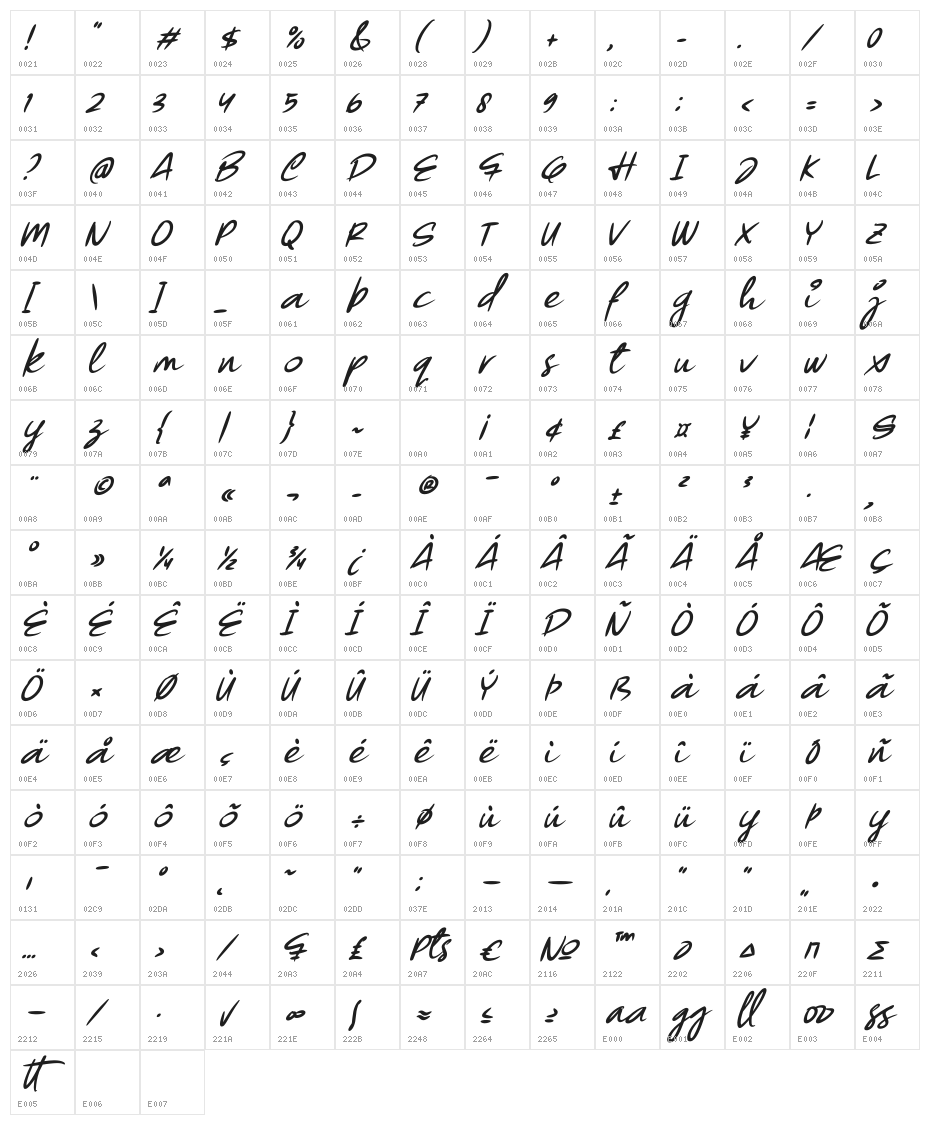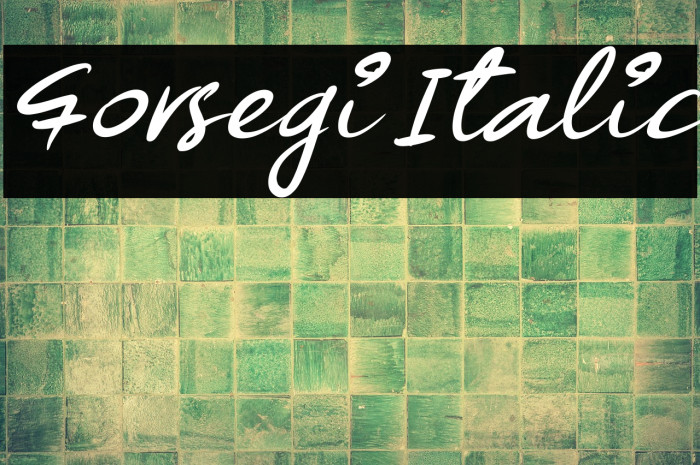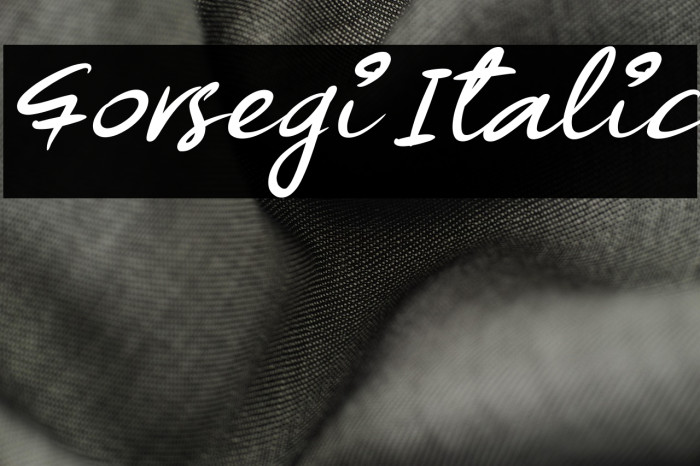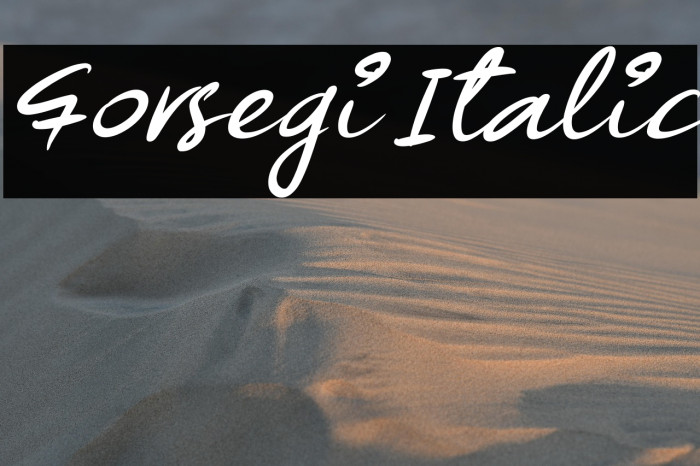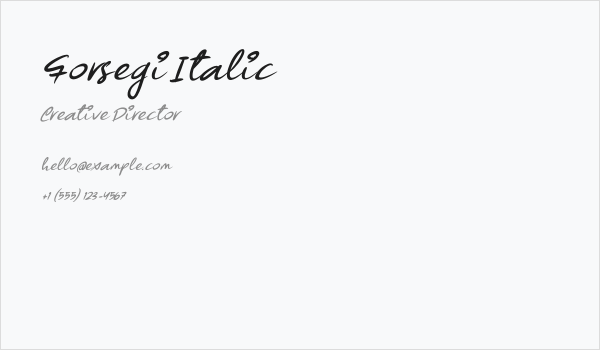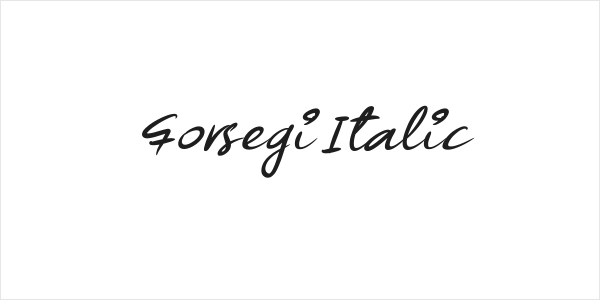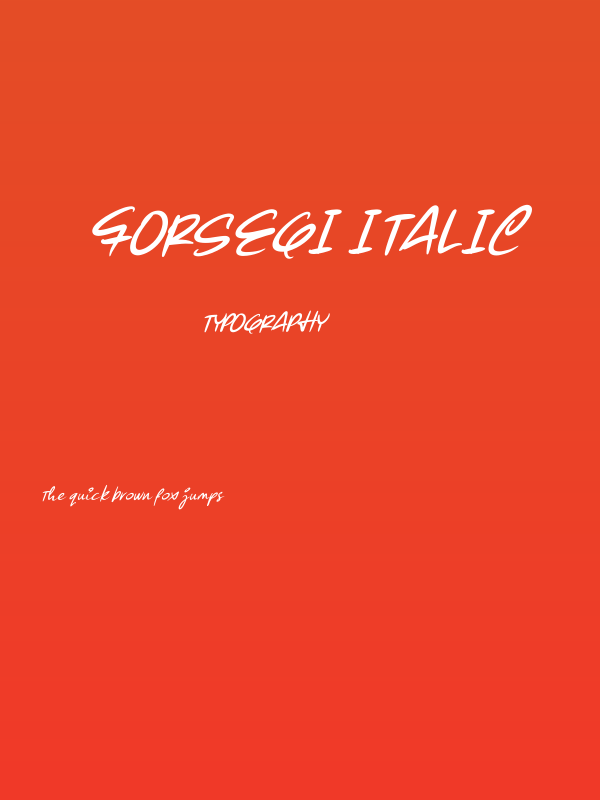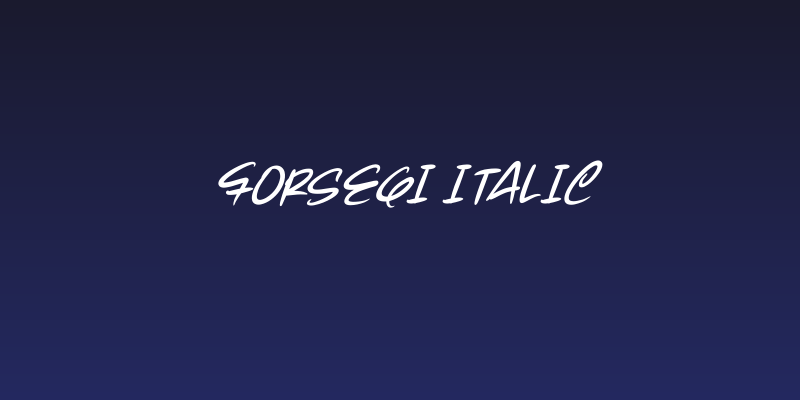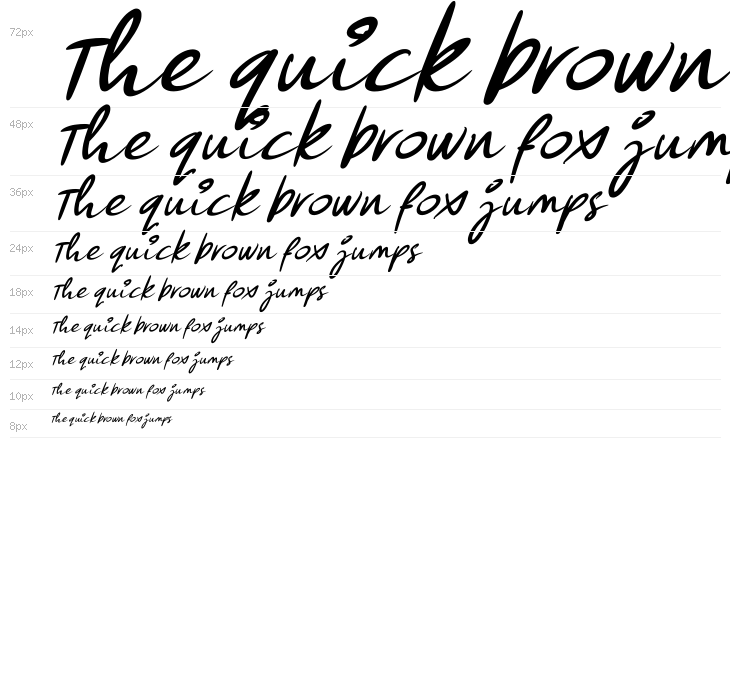
Forsegi Italic Font
Forsegi Italic Description
This font exudes a dynamic and energetic style, characterized by its fluid, cursive script. The letters are connected, creating a seamless flow that mimics natural handwriting. The strokes are bold and confident, with a slight slant that enhances its italic nature. The uppercase letters are prominent and expressive, while the lowercase letters maintain a consistent rhythm and balance. The numerals and special characters are crafted with the same attention to detail, ensuring uniformity across the entire character set. This font is ideal for projects that require a personal touch, such as invitations, greeting cards, or branding materials.